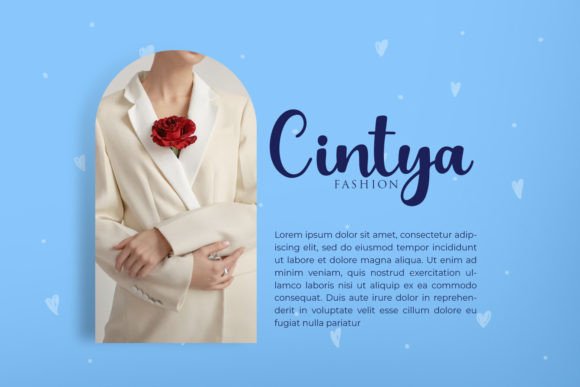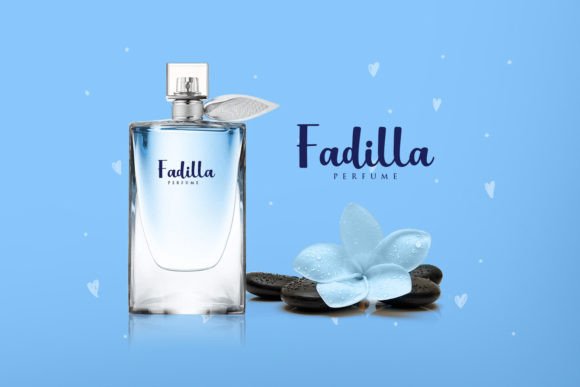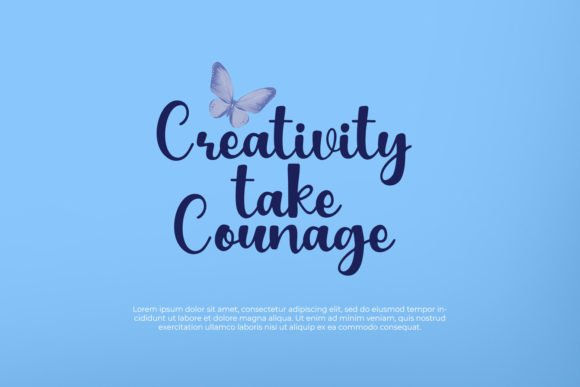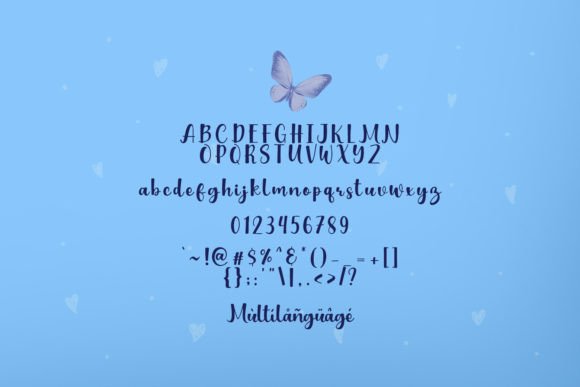
Introduction to Monthela Font
Remember that moment when a spark of creativity hits you, and you can’t wait to bring your idea to life? For designers, this feeling is a daily occurrence, and the right tools can make all the difference. A beautiful font can elevate a design from good to great, and that’s exactly what the Monthela Font is designed to do.
With its unique script and beautiful touch, Monthela Font is the perfect addition to any designer’s toolkit. Whether you’re working on a poster, logo, magazine, book cover, or banner, this font can help you create a truly stunning design. And the best part? It’s available for a free download, making it an invaluable resource for designers of all levels.
What sets Monthela Font apart is its high-quality design and versatility. It can be easily adapted to a wide range of projects, from simple flyers to complex branding materials. And with its transparent background, you can customize it to fit any design style. Whether you’re a seasoned pro or just starting out, Monthela Font is a valuable addition to any design project.
Key Features of Monthela Font
- High-quality, professional design suitable for creative projects
- Supports various font sizes and styles, making it ideal for various creative applications
- Designed to be highly legible and readable, even at small font sizes
Honest Review: Monthela Font
I recently had the chance to work with the Monthela Font, and I must say it’s a great addition to any designer’s toolkit. The high-quality font is perfect for a variety of creative projects, from branding to typography-based art.
Here are some of the things that I like about the Monthela Font:
- ✨ Beautiful, modern design that’s perfect for modern creative projects.
- ✨ High-quality font that’s perfect for print and digital designs.
- ⚠️ Limited character set, which may be a problem for designers who need to use the font for a large-scale project.
- ⚠️ May not be suitable for use with very small text sizes, as the font can become blurry.
Overall, I’m very impressed with the Monthela Font. It’s a great addition to any designer’s toolkit, and it’s perfect for a variety of creative projects. While it may have some limitations, the benefits far outweigh the drawbacks.
The Monthela Font is a high-quality design resource perfect for creative projects that require a unique and elegant touch. This font can be downloaded for free, making it an ideal choice for designers and artists on a budget.
To get the most out of the Monthela Font, use it for creative projects that require a unique and elegant touch. Experiment with different font sizes, colors, and combinations to create a visually appealing design.
The Monthela Font is commonly used for wedding invitations, business cards, and other creative projects that require a touch of elegance and sophistication. Its transparent background feature makes it perfect for designs that require a seamless integration with other elements.
Can I customize the Monthela Font to fit my design needs?
Yes, the Monthela Font is highly customizable, allowing you to adjust its size, color, and style to fit your design needs. You can also use the font’s features, such as ligatures and swashes, to add a touch of elegance and sophistication to your creative project. Additionally, the font’s transparent background makes it easy to combine with other design elements and backgrounds.